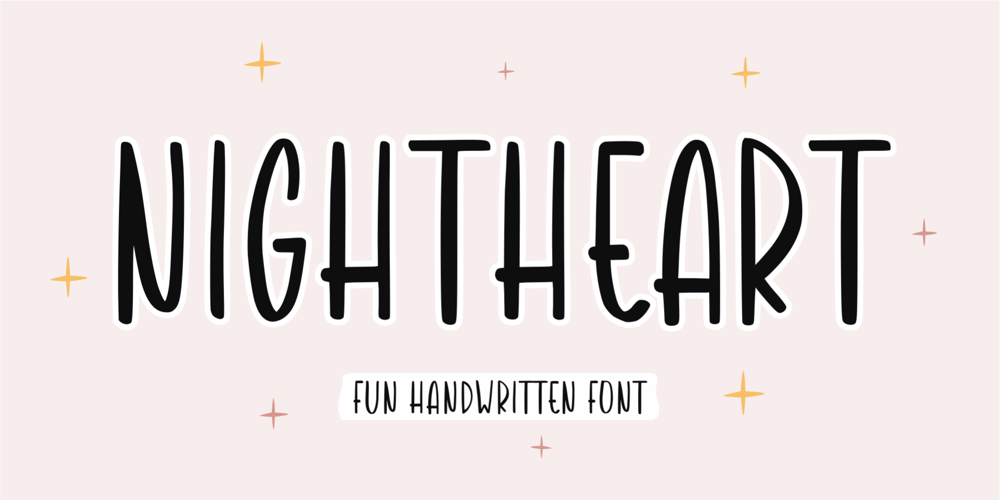
Nightheart Font Family was designed by Suhery Anto, Odies Dwi Yudhistira and published by Qwrtype Foundry. Nightheart contains 1 styles and family package options. Proudly presenting Nightheart is a handwritten font.Nightheart is perfect for product packaging, branding project, magazine, social media, wedding invitations, or just used to express words above the background.Nightheart also comes with multilingual support.Enjoy the font, feel free to comment or feedback, send me PM or email.Thank you!